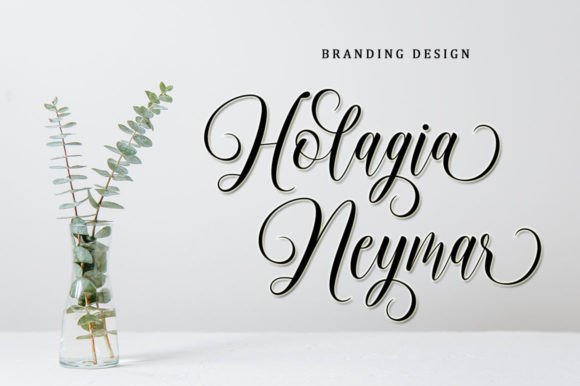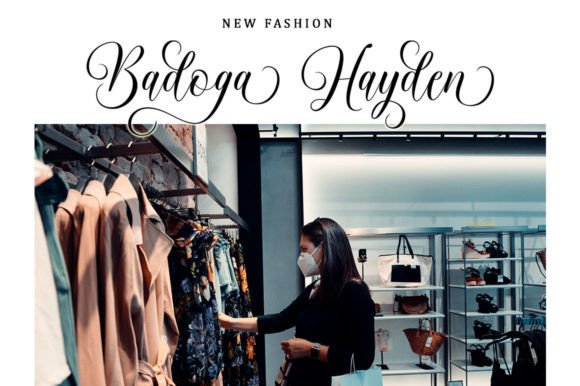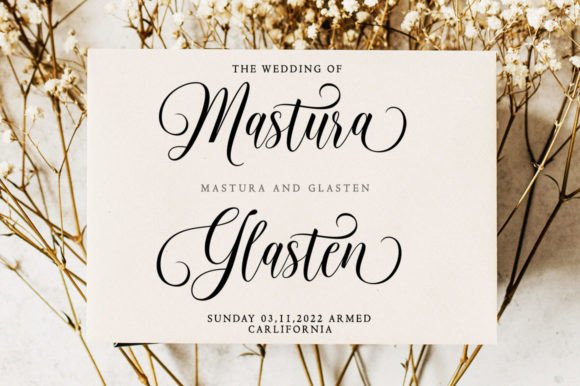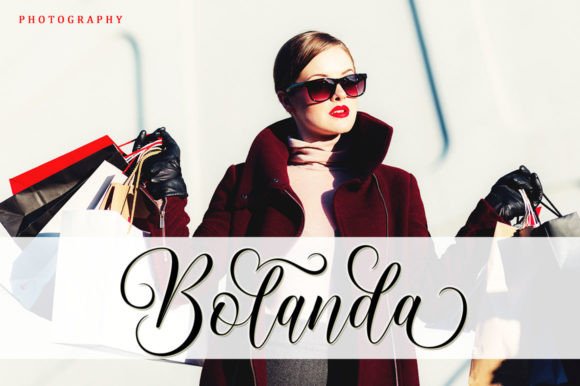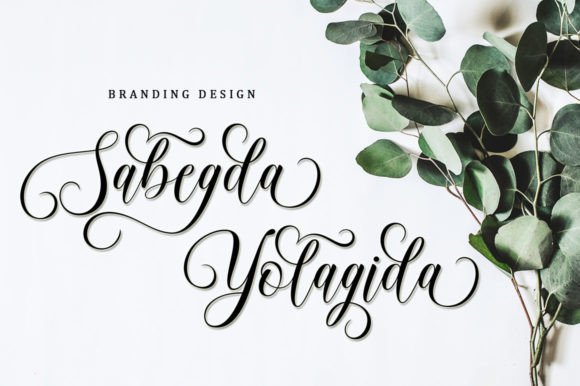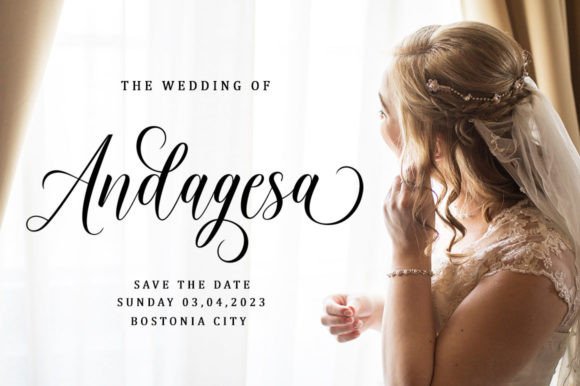
Introduction to Salistya Font
As a designer, have you ever found yourself in a moment of pure creative bliss, surrounded by scribbled notes and half-finished sketches, waiting for the perfect font to bring your vision to life? That’s exactly what the Salistya Font promises to deliver – an elegant, flowing handwritten style that adds an extra touch of sophistication to any design project.
Whether you’re working on a personal project or a high-quality design for a client, the Salistya Font is a valuable resource that’s sure to elevate your work. Its unique, timeless style is perfect for creating stunning designs, and with its transparent background, you can easily combine it with other design elements to create a truly eye-catching look.
Key Features of Salistya Font
- High-quality, professional font perfect for creative projects and design resources.
- Unique, hand-drawn design with a transparent background, allowing for flexibility and customization in design projects.
- Designed with a modern aesthetic, making it suitable for a wide range of creative applications, from branding to digital art.
Honest Review: Salistya Font
As a designer, I’m always on the lookout for high-quality design resources to elevate my creative projects. Recently, I came across the Salistya Font, and I’m excited to share my honest review with you.
- The Salistya Font offers a beautiful, modern design that’s perfect for a variety of creative projects.
- The transparent background makes it easy to customize and use in different design contexts.
- The font is highly versatile and works well in a range of font sizes and styles.
- The Salistya Font may not be suitable for complex, multi-line text due to its modern design and condensed letterforms.
- The font may not be as readable in smaller font sizes, so be mindful of your design context.
Overall, I’m impressed with the Salistya Font as a design resource. Its modern design, free download, and transparent background make it an excellent addition to any designer’s toolkit. While it may have some limitations, it’s a great choice for a wide range of creative projects.
Tips for Getting the Most Out of Salistya Font
Experiment with different font sizes and styles to add visual interest to your design. Use the Salistya Font in combination with other design elements to create a cohesive and creative project.
Common Use Cases for Salistya Font
The Salistya Font is ideal for use in digital design projects, such as social media graphics, presentations, and websites. It’s also great for use in print design projects, such as business cards and brochures.
Does the Salistya Font have a transparent background?
Yes, the Salistya Font has a transparent background, making it ideal for use in graphic design, digital art, and other creative projects where a transparent font is required. This feature allows you to easily combine the font with other design elements and achieve a seamless look.